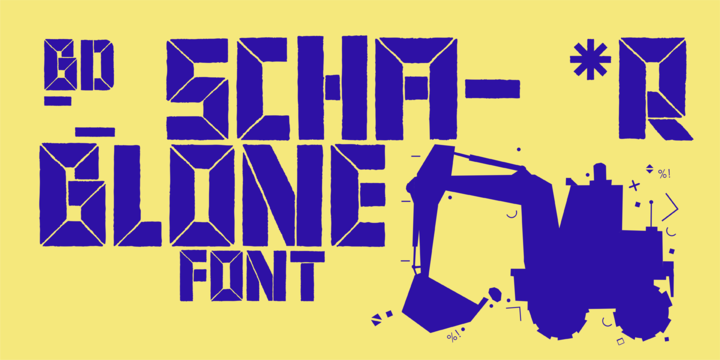
BD Schablone
by Typedifferent
The BD Schablone Font Family was designed by and published by Typedifferent. BD Schablone contains 1 styles. More about this family
BD Schablone is a bold, human stencil with an anticipation of the digital lcd display.
Typedifferent is the font foundry from Büro Destruct, a graphic design studio founded 1994 in Bern, the capital city of Switzerland. Büro Destruct constantly creates new typefaces, either originally crafted for their use in commissioned work, or as graphically gymnastics in the mission of generating new shapes and forms to be used in typefaces. As the name "Typedifferent" implies – the fonts are mainly display typefaces with a unique attitude.